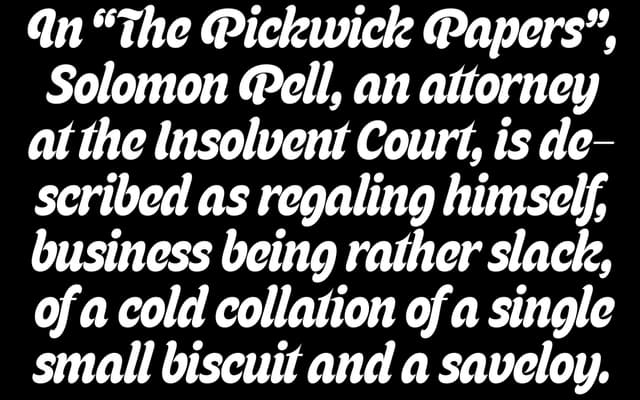
A display typeface from Beasts of England, named after the battered chip-shop sausage and carrying that same unpretentious, distinctly British character.
Released by Beasts of England, Saveloy takes its name and spirit from a staple of British chip-shop culture. The foundry's specimen text leans hard into working-class English nostalgia, suggesting a typeface with warmth and personality over neutrality. Technical details are sparse on the product page, but the single-licence pricing and Beasts of England's broader catalogue point to a display face suited to editorial and branding work with a vernacular edge.
The name, the chip-shop prose specimen, and the Beasts of England context all point to a characterful display typeface; the specimen text and pricing page offer no technical classification detail, but the foundry's aesthetic strongly suggests a display serif with personality.